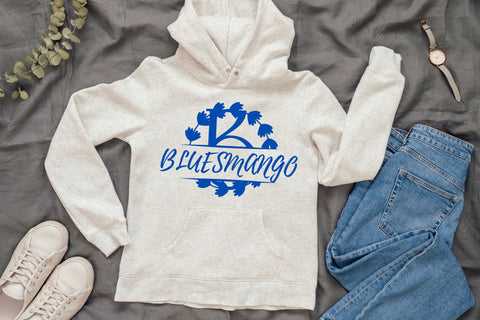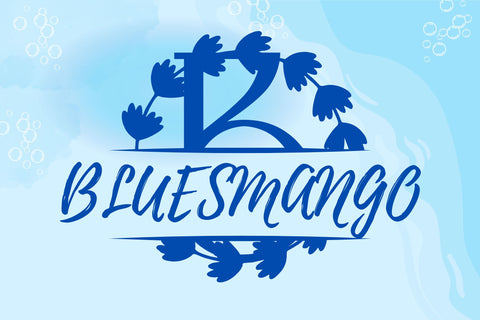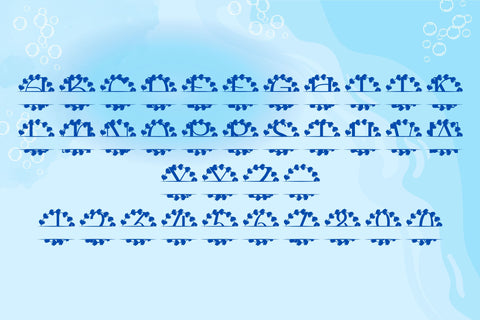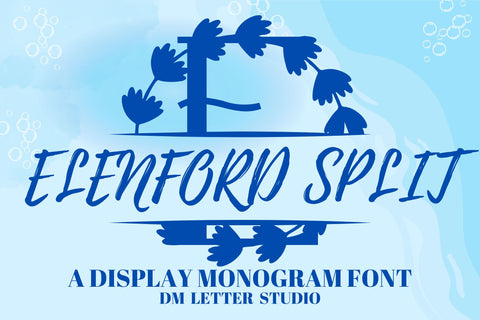
Elenford Split Monogram Font
Meet Elenford Split Monogram Font
Elenford Split Monogram Font turns initials into elegant nameplates in seconds. The letterforms feel poised and clean, while a crisp center split leaves space for names, dates, or short words. Because spacing stays balanced, results look polished with very little effort. Use it for wedding gifts, family signs, door hangers, tumblers, ornaments, and boutique packaging. Moreover, this split monogram font pairs beautifully with a simple sans or a light script, so every layout stays readable and refined.
Where this split monogram font shines
Set a single initial, then place the family name inside the split. Next, try couple names for keepsakes or venue names for signage. Since proportions favor clarity, designs scale from large wall art to tiny tags. As a result, Elenford Split Monogram Font works perfectly for Cricut, Glowforge, laser projects, and vinyl.
Design tips for Elenford Split Monogram
Keep the main initial large to show the refined structure. Place the split line at center or slightly low for balance. Meanwhile, choose a clean secondary font for the text inside the split. Because the look is airy, metallic accents and natural textures add instant value. Think champagne foil on blush card or matte black on walnut wood. However, keep names short so everything remains readable at smaller sizes.
Uppercase alphabet optimized for split monograms
Matching lowercase, numbers, punctuation
Curves tuned for engraving, foil, laser cutting, and clean vinyl work